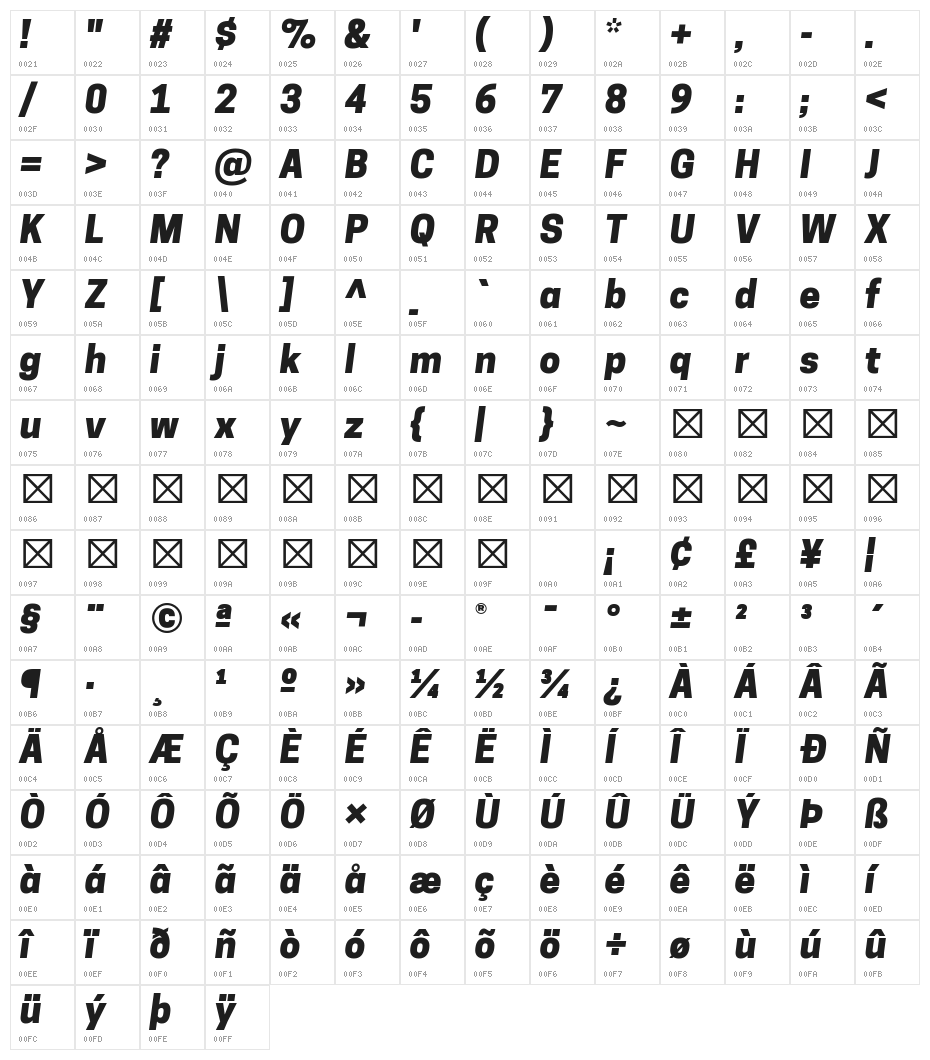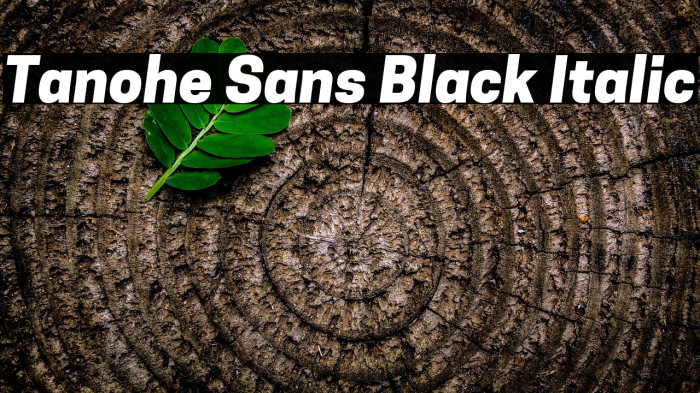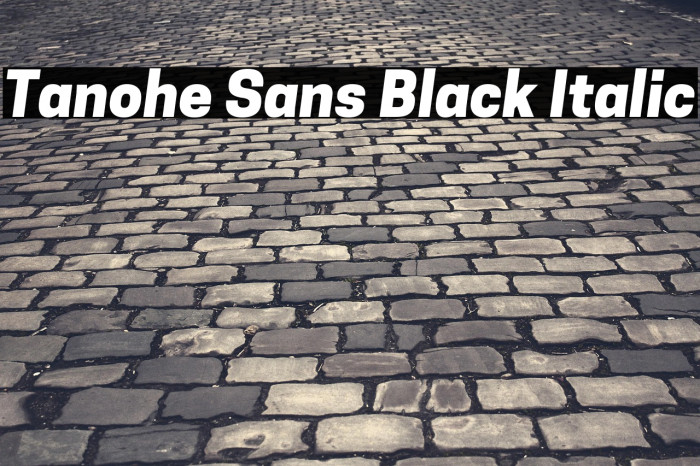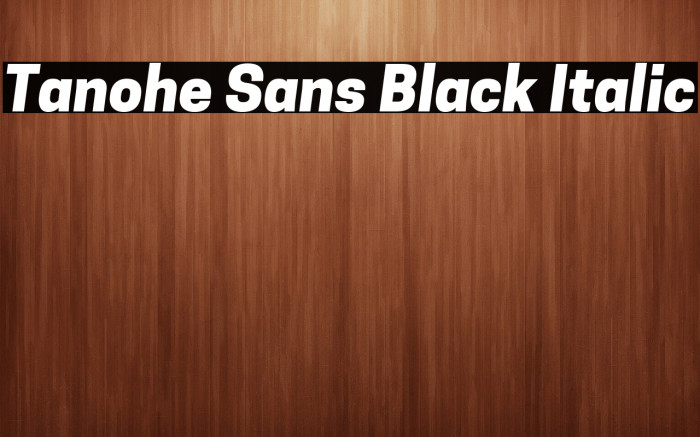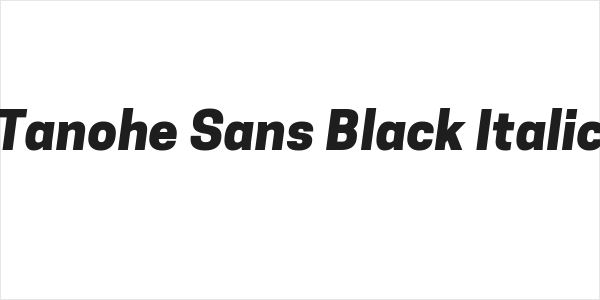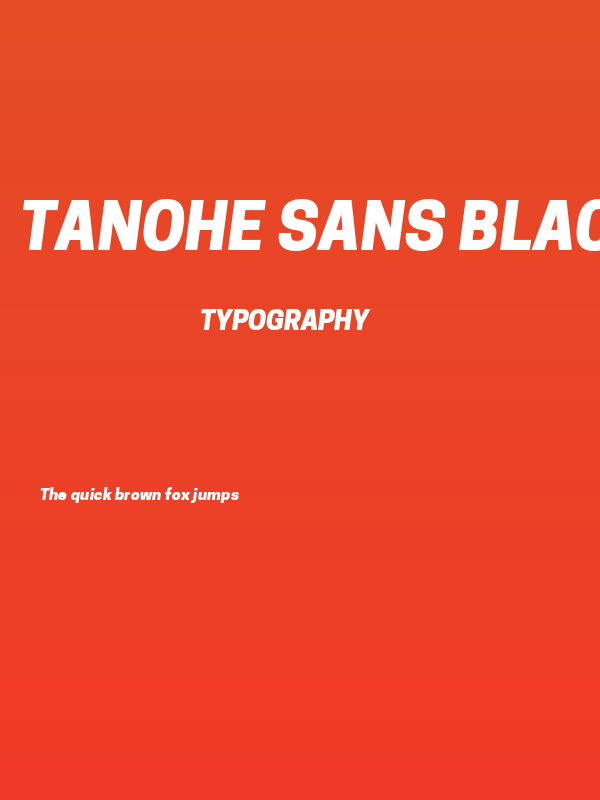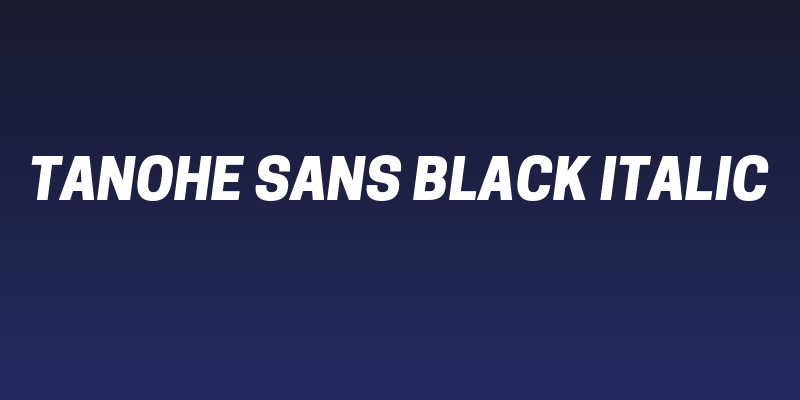
Tanohe Sans Black Italic Font
Tanohe Sans Black Italic Description
This font exhibits a bold and dynamic presence with its strong, thick strokes and italicized slant, giving it a sense of motion and urgency. The sans-serif style ensures a clean and modern appearance, making it highly legible even at smaller sizes. The characters are well-proportioned with a slightly condensed width, which allows for efficient use of space without compromising readability. The uppercase letters are assertive and commanding, while the lowercase letters maintain a consistent flow. Numerals are robust and clear, ensuring they stand out in any context. Special characters are designed with the same boldness, ensuring they integrate seamlessly with the rest of the typeface.
| Use Case | Headlines, Logos, Advertising |
| Proposed Projects | Ideal for branding, advertising, headlines, and any project requiring a strong visual impact. |